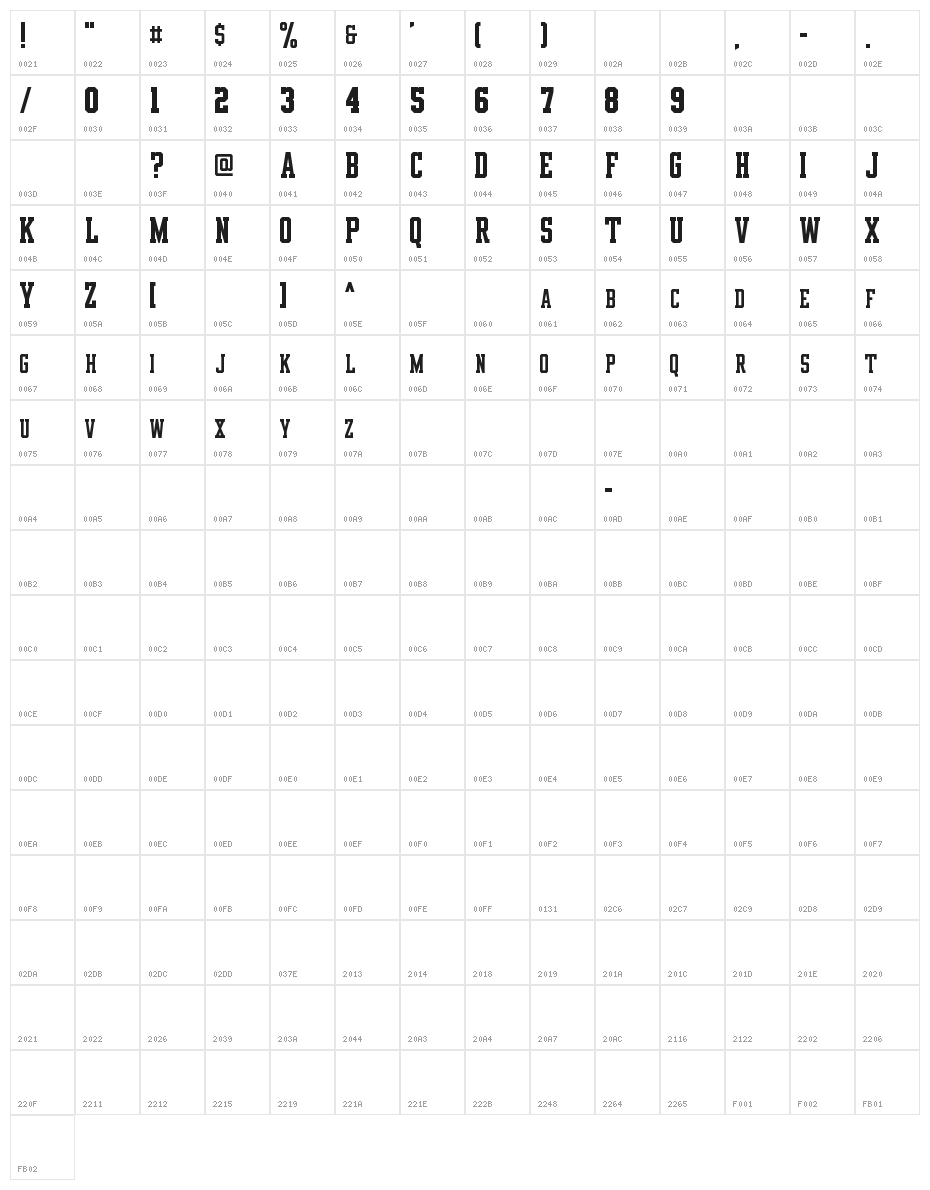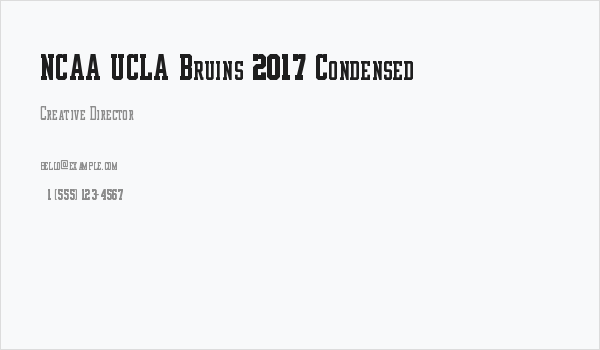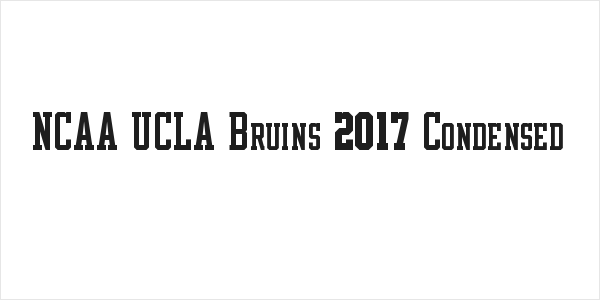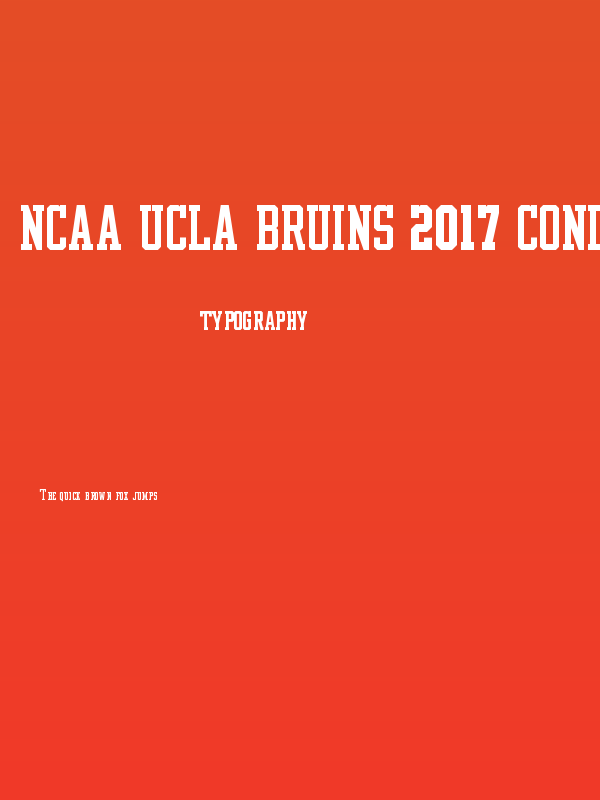
NCAA UCLA Bruins 2017 Condensed Font
NCAA UCLA Bruins 2017 Condensed Description
This font features a bold, condensed style with strong, block-like characters that convey a sense of strength and stability. The uppercase letters are prominent and assertive, making a powerful visual impact. The numbers and special characters maintain the same robust design, ensuring consistency across all elements. The font's geometric shapes and uniform stroke widths contribute to its modern and professional appearance, suitable for conveying authority and confidence.
| Proposed Projects | Ideal for sports branding, team logos, posters, and headlines that require a bold and impactful presence. |